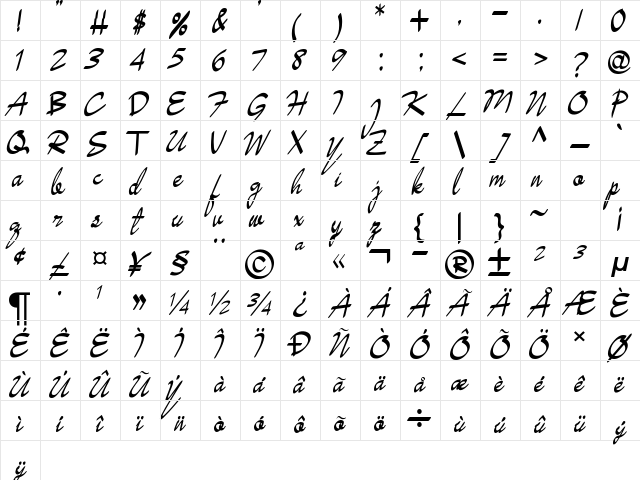
Swandana Regular
Design Context for Swandana Typeface
Swandana is a composed and adaptable typeface that performs quietly and consistently across a wide range of design contexts.